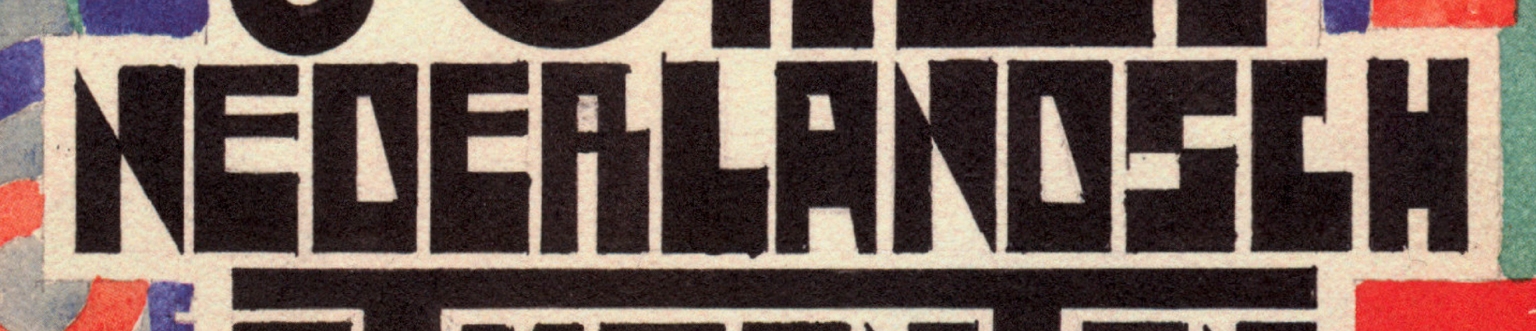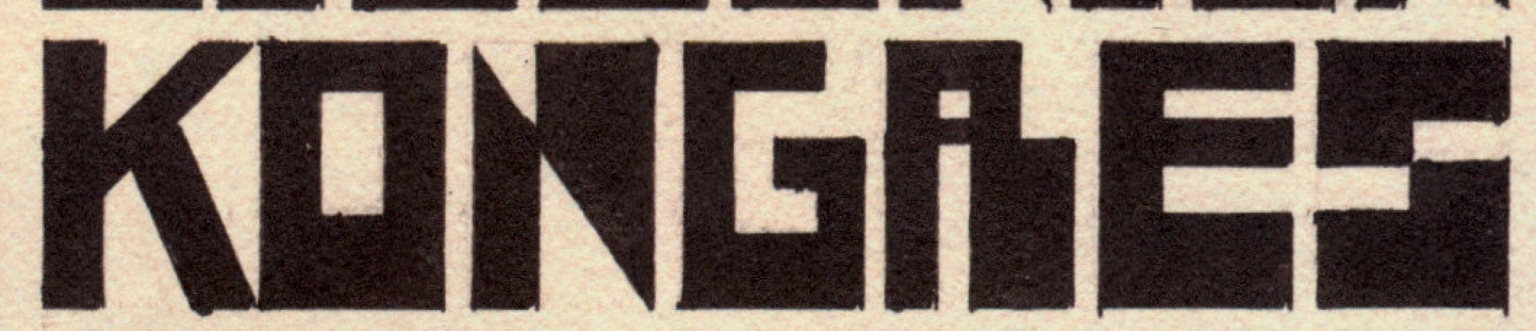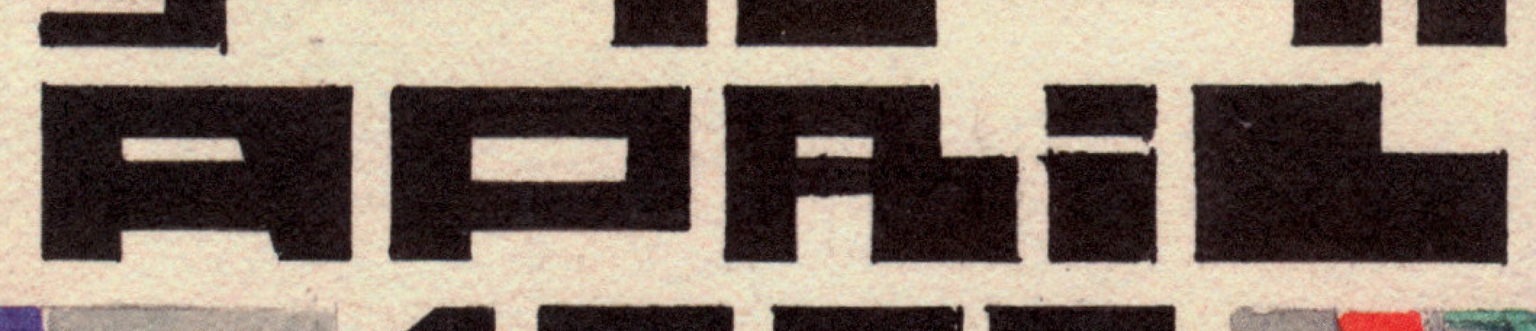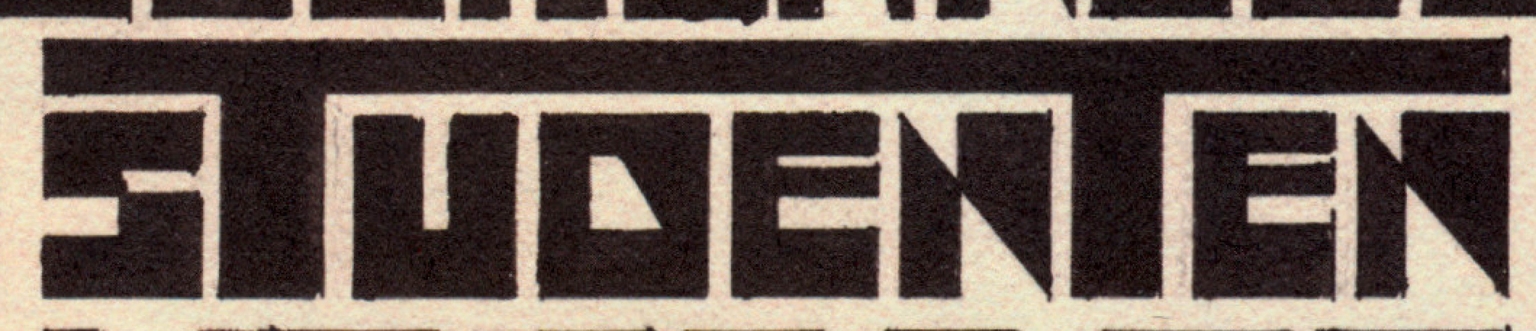
Kongres
Kongres is a display typeface designed by Ramiro Espinoza and inspired by the lettering of Belgian artist Jozef Peeters (1895–1960). A pioneering abstract painter and designer, Peeters created striking geometric compositions that bridged art and typography, and among his graphic works is a remarkable poster promoting a student conference held in Antwerp in 1922. Its expressive, hand-rendered letterforms—charged with the energy of early modernist experimentation—became the starting point for Kongres. In this digital interpretation, Espinoza has carefully distilled Peeters’s original spirit while adapting the forms into a usable and coherent typeface ideal for posters, exhibitions, book covers, and branding, Kongres is both homage and reinvention—a typeface with historic resonance and modern strength.